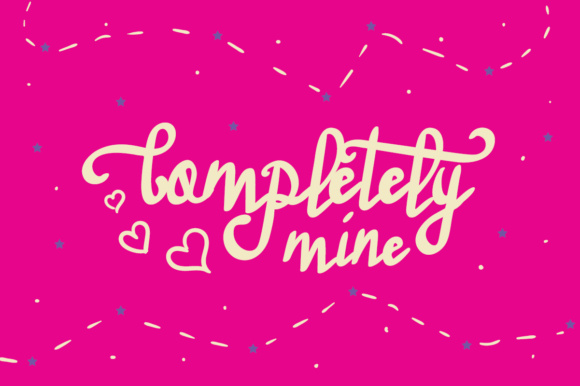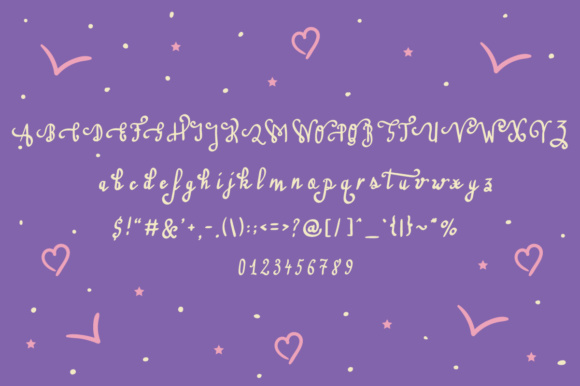
The Amazing Love Font: A Cutesy Handwritten Delight
I’ll never forget the time I was working on a Valentine’s Day project for a client, and I just couldn’t find the perfect font to convey the sweetness and playfulness they wanted. That’s when I stumbled upon the Amazing Love font, and it instantly became my go-to. If you’re a designer, crafter, or creative hobbyist looking for a font that will add a touch of whimsy to your projects, you’re in luck!
- ✨ The Amazing Love font is a beautifully crafted, cutesy handwritten font with amazing swashes in the capitals. It’s perfect for adding a touch of elegance and playfulness to your designs.
- ✅ The font is incredibly versatile and can be used for a wide range of projects, from Valentine’s Day cards to wedding invitations and more.
- 💕 The swashes in the capitals are a game-changer. They add a level of sophistication and whimsy that’s hard to find in other fonts.
While the Amazing Love font is an amazing addition to any design project, there are a few things to keep in mind:
- ⚠️ The font can be a bit over-the-top if not used carefully. Make sure to balance it with some simpler fonts to avoid overwhelming your design.
- 🤔 Some of the swashes can be a bit finicky, so be prepared to experiment and adjust them to get the look you want.
The Story Behind Amazing Love
The Amazing Love font was designed by a talented font creator who wanted to craft a font that would capture the whimsy and romance of handwritten love letters. With its beautiful swashes and elegant letterforms, it’s no wonder that Amazing Love has become a favorite among designers and crafters.
Q: What is the Amazing Love font best used for?
A: The Amazing Love font is best used for projects that require a touch of whimsy and romance, such as Valentine’s Day cards, wedding invitations, and love-themed branding projects.